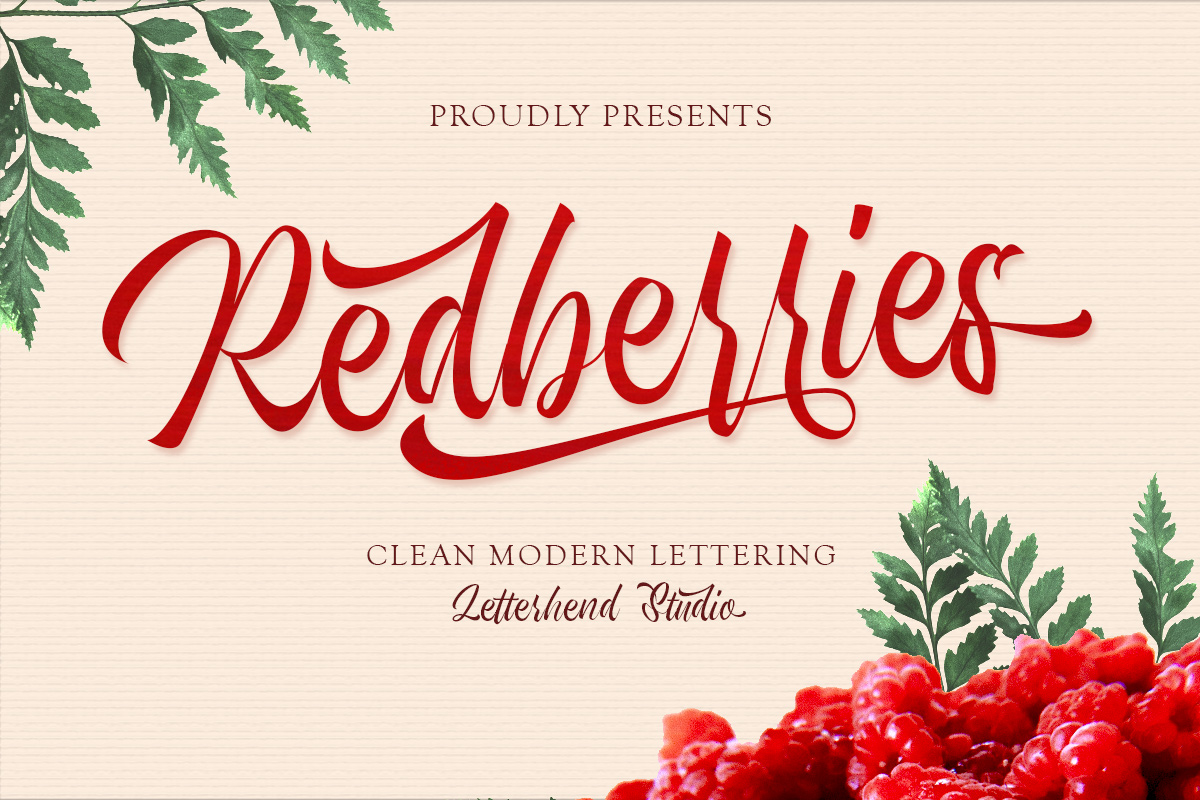
Redberries Font
Redberries Font is perfect for playful children's book designs, organic food packaging, berry farm branding, nature-themed logos, handcrafted product labels, artisanal bakery signage, fresh juice bar menus, farmers market displays, craft store materials, and whimsical greeting cards. This charming typeface brings natural warmth to food blogs, organic restaurant branding, botanical garden signage, kids' party invitations, and eco-friendly product packaging.
Redberries Font is exciting because it captures the essence of natural sweetness and organic charm through its delightfully crafted letterforms. The font features hand-drawn characteristics with subtle irregularities that give it an authentic, artisanal feel reminiscent of fresh berries and handpicked goodness. Its playful curves and friendly appearance create an inviting atmosphere that instantly connects with audiences seeking genuine, wholesome experiences. The font's organic flow and natural rhythm make it perfect for brands wanting to convey freshness, authenticity, and joyful simplicity in their visual communications.
The Redberries Font family includes various delightful styles: Regular, Light, Medium, Bold, Italic, Outline, Shadow, Textured, Brush, Script, Decorative, and Seasonal variants. Each family member preserves the core organic DNA while offering different visual textures for diverse design applications. The comprehensive font collection ensures consistent branding across different seasonal campaigns and product categories.
Whether you're creating organic food branding, designing children's educational materials, developing nature-themed websites, or crafting artisanal product packaging, Redberries Font delivers exceptional charm and personality. The font's distinctive organic character shines in logos, packaging design, social media graphics, and display applications where natural warmth and approachability are essential.